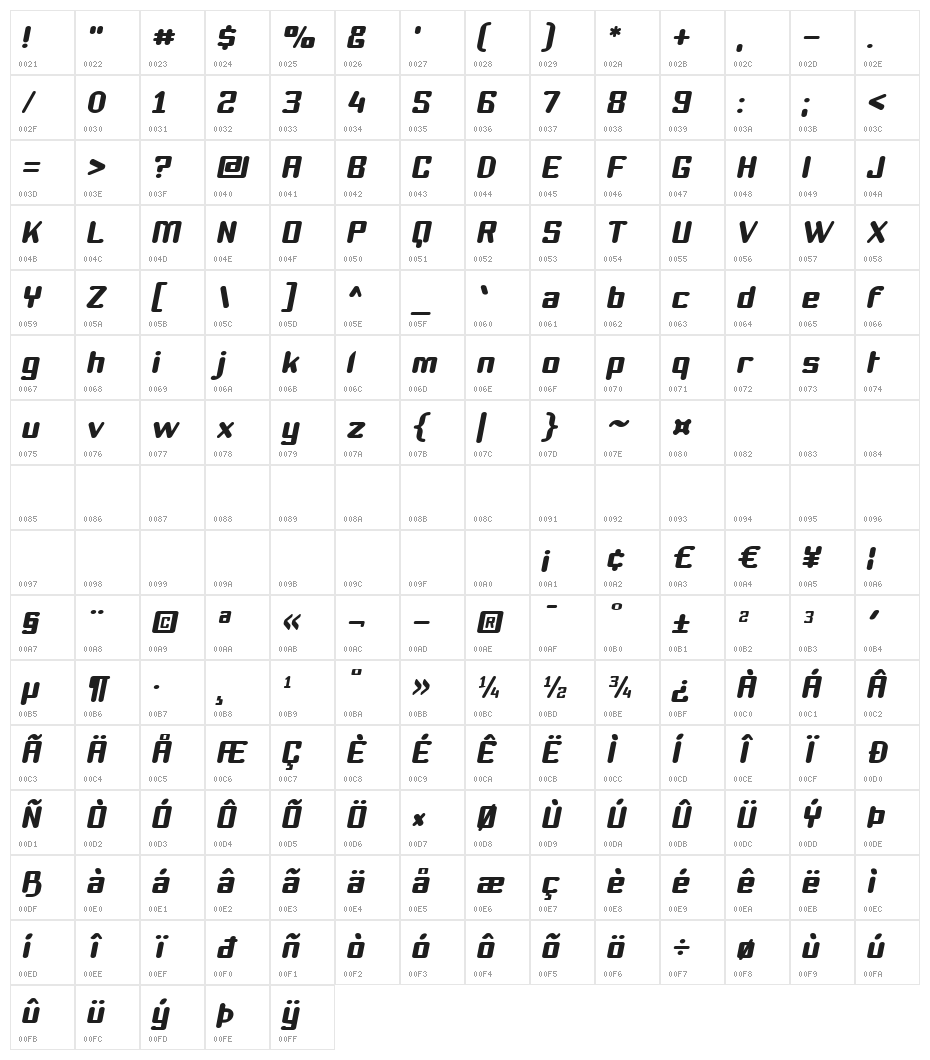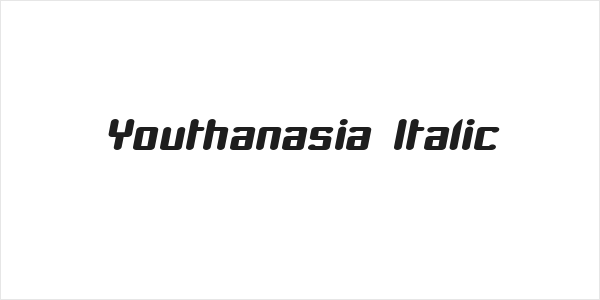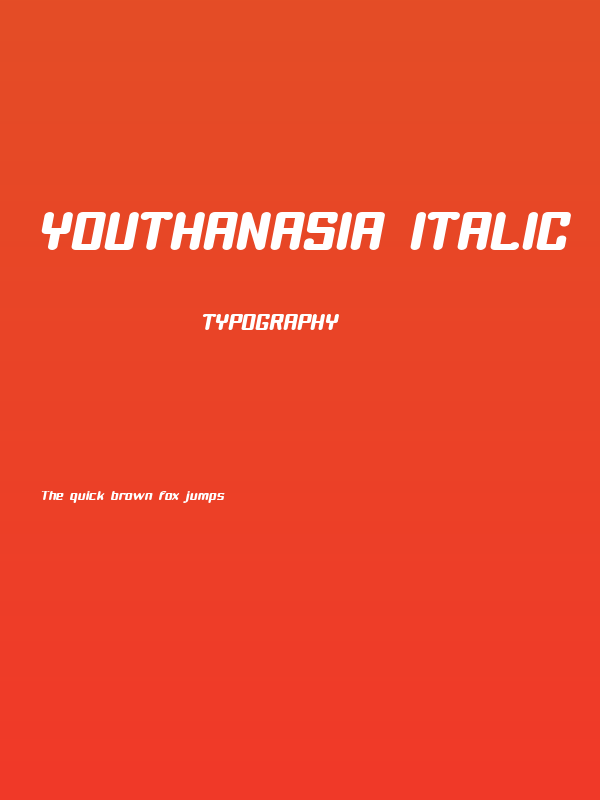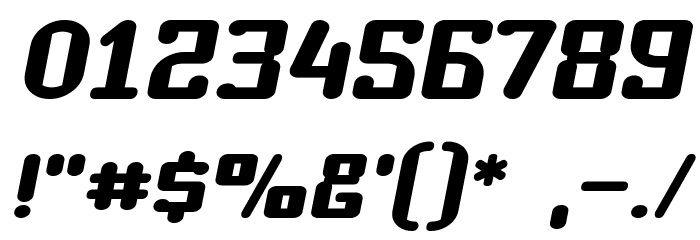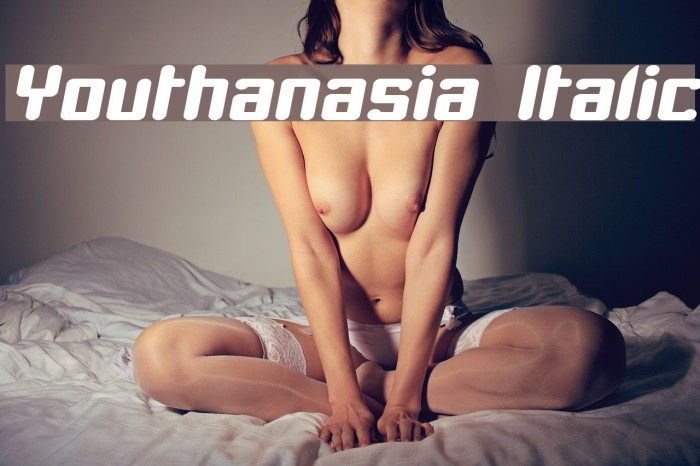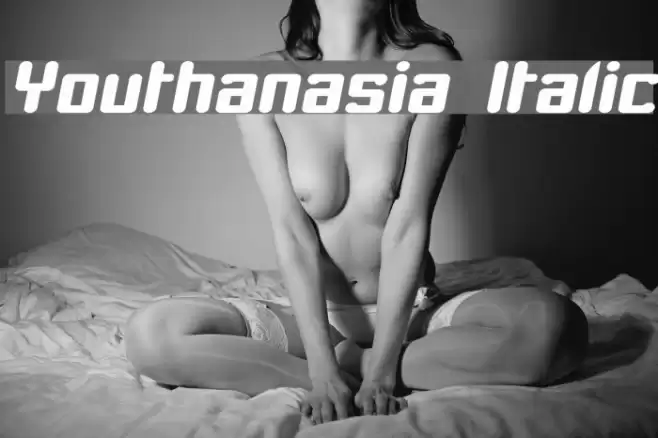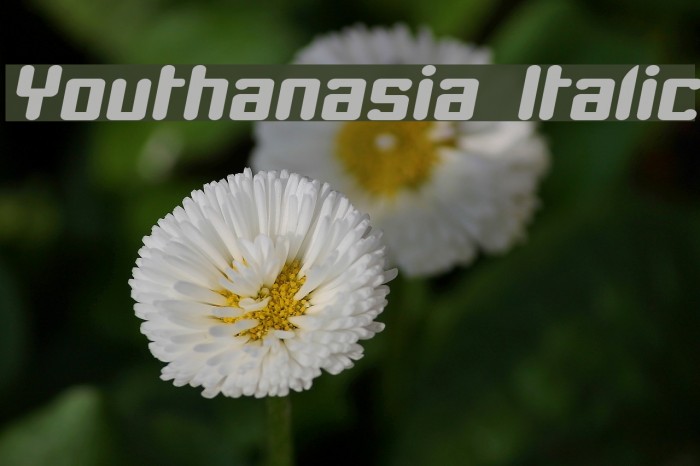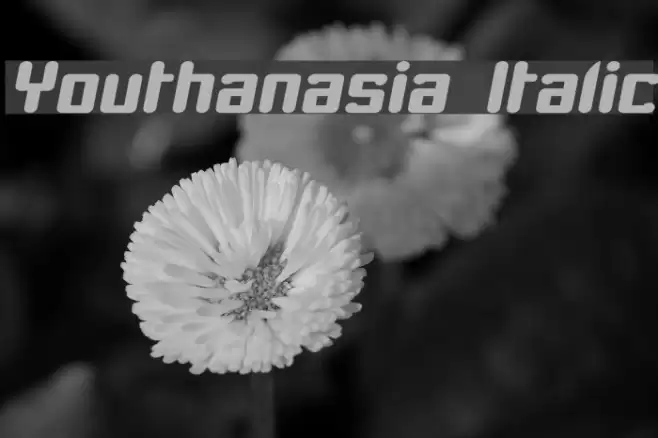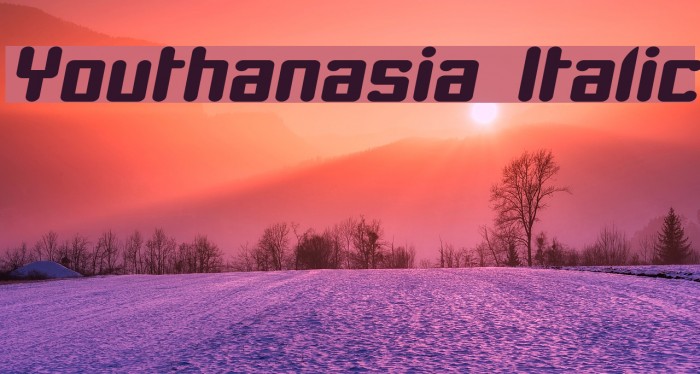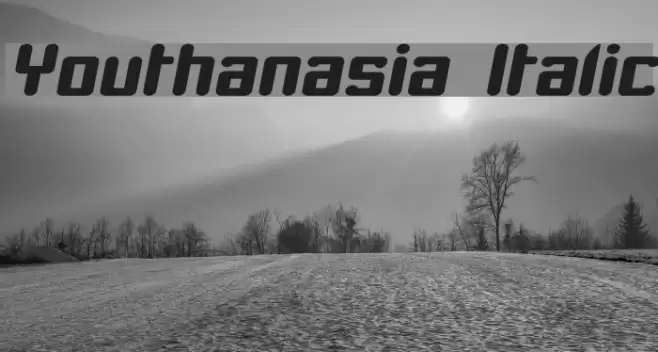
Youthanasia Italic Font
Youthanasia Italic Description
This font features a bold, italicized style with a modern and dynamic appearance. The characters are slightly slanted, giving a sense of motion and energy. The strokes are thick and consistent, contributing to a strong visual impact. The design includes rounded edges, which soften the overall look while maintaining a robust presence. The uppercase and lowercase letters are well-proportioned, and the numerals are clear and easy to read. Special characters are included, matching the bold and italicized theme. This font is suitable for projects that require a contemporary and energetic feel.
| Proposed Projects | Ideal for sports branding, dynamic posters, modern advertising, and energetic logo designs. |